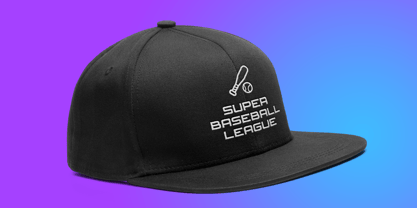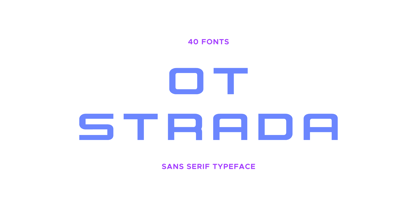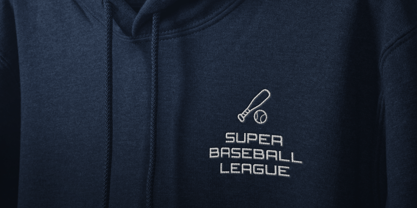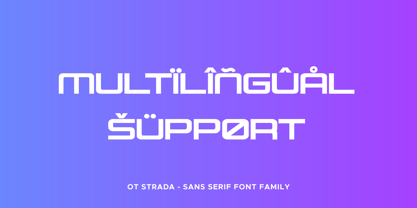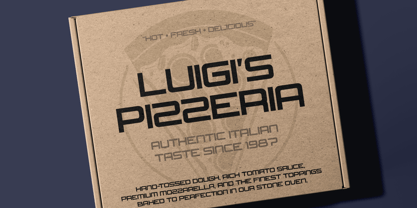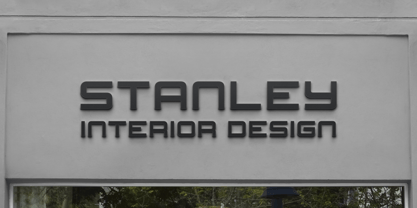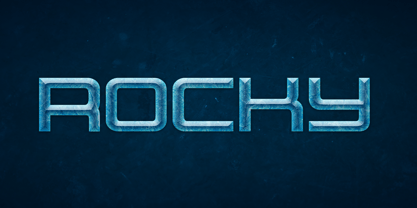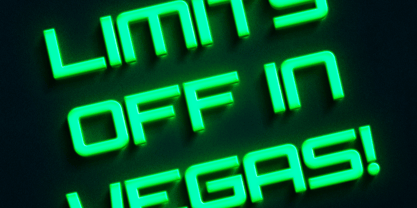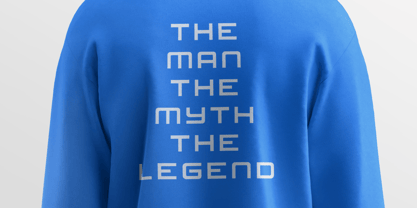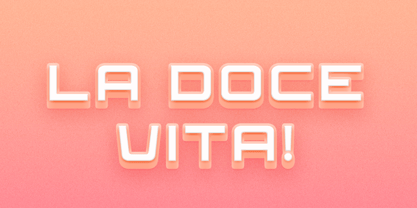
OT Strada
La familia tipográfica OT Strada fue diseñada por Mariia Çakıcı y publicada por OtterType. OT Strada contiene 39 estilos y opciones de paquete familiar. Más información sobre esta familia
Ot Strada is a versatile sans serif typeface built for bold visual impact and flexible creative use. With a strong geometric structure and expressive character, it bridges clarity with texture, making it suitable for branding, posters, packaging, and digital design. The family includes 40 carefully crafted styles, ranging from clean Regular and Italic to highly stylized variations such as Brush, Cut, Ink, Grit, Rust, Scratch, and Worn. Each style also comes with matching Outline versions, expanding its usability across layered typography, striking headlines, and experimental compositions. Ot Strada supports Latin scripts, making it a reliable choice for multilingual projects. With a glyph set of 172 characters, it covers essential typographic needs while maintaining consistency across all styles. Whether you're aiming for a polished modern look or a distressed, handcrafted feel, Ot Strada delivers a wide spectrum of visual tones within a single cohesive family. Designed by Mariia CAKICI, Ot Strada is built for designers who want variety, personality, and control in one complete system. Language Support: Afrikaans, Albanian, Asu, Basque, Bemba, Bena, Cebuano, Chiga, Cornish, Corsican, Danish, English, Filipino, French, Friulian, Galician, German, Gusii, Ido, Indonesian, Interlingua, Irish, Italian, Javanese, Jju, Kabuverdianu, Kalaallisut, Kalenjin, Kinyarwanda, Lojban, Low German, Luo, Luxembourgish, Luyia, Machame, Makhuwa-Meetto, Makonde, Malagasy, Malay, Manx, Morisyen, North Ndebele, Northern Sotho, Norwegian Bokmål, Norwegian Nynorsk, Nyankole, Occitan, Oromo, Portuguese, Rejang, Romansh, Rombo, Rundi, Rwa, Samburu, Sango, Sangu, Sardinian, Scottish Gaelic, Sena, Shambala, Shona, Soga, Somali, South Ndebele, Southern Sotho, Spanish, Sundanese, Swahili, Swati, Swedish, Swiss German, Taita, Taroko, Teso, Tsonga, Tswana, Vunjo, Walloon, Wolastoqey, Xhosa, Zulu Thank you!
Mariia Çakıcı is an independent type designer creating a growing library of over 70 fonts, including large families with up to 40 styles. The collection focuses on Latin script and is built for branding, social media, packaging, and modern digital design. The portfolio includes everything from elegant handwritten scripts to bold display fonts and clean contemporary typefaces. Each font is designed to be versatile, easy to use, and ready for real-world projects—helping designers create distinctive and professional visuals with ease.